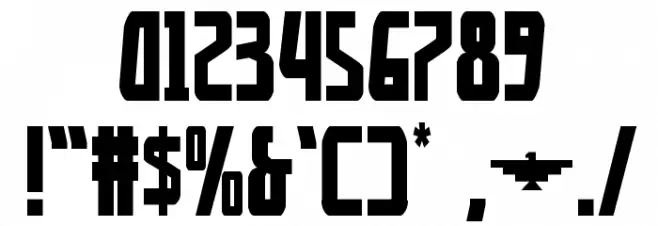
Thunder-Hawk Drop Regular Font
Thunder-Hawk Drop Regular Description
This font features a bold, geometric design with a strong presence. The characters are blocky and angular, giving off a futuristic and industrial vibe. The uppercase letters are particularly striking, with a uniform height and width that create a cohesive look. The numbers and special characters maintain this bold style, ensuring consistency across all text elements. The font is highly legible, making it suitable for impactful headlines and attention-grabbing designs. Its unique style makes it stand out, perfect for projects that require a modern and edgy aesthetic.
A bold, geometric font with a futuristic and industrial style from Uncategorized fonts.
- Proposed Projects: Ideal for posters, logos, video game graphics, and branding materials that require a strong, modern look.